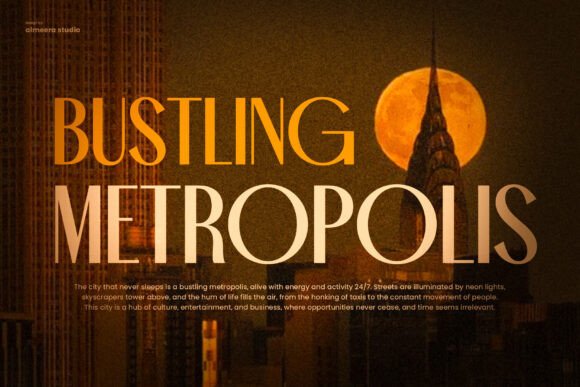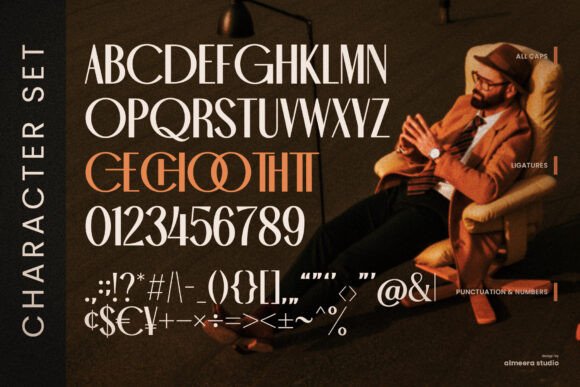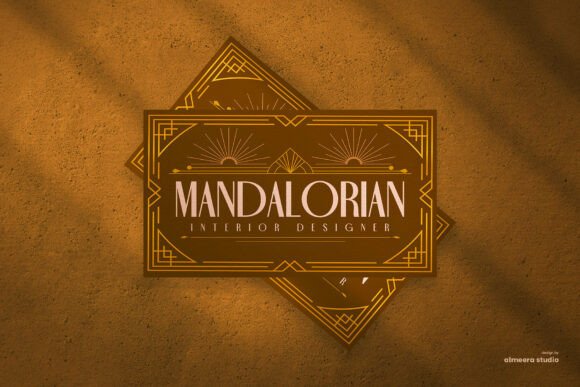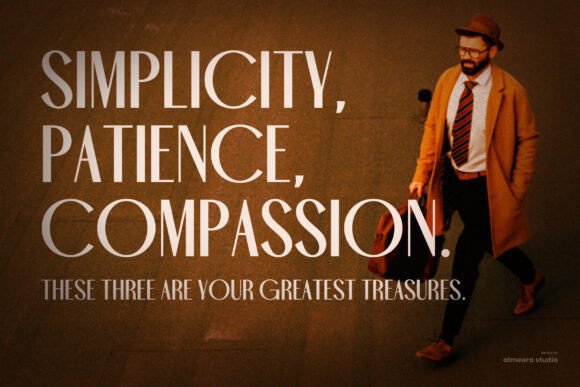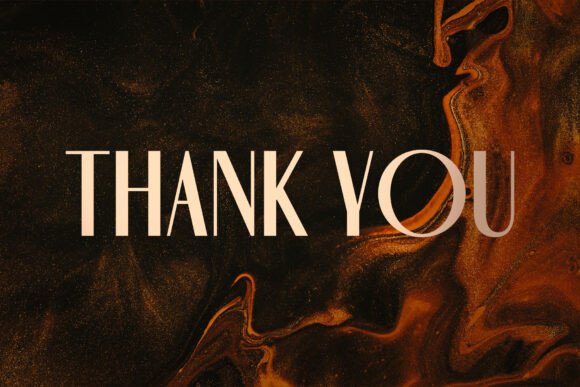
Introducing Charlie Brown – The Elegant Modern Sans Font
In the world of typography, fonts play a crucial role in conveying messages, expressing emotions, and creating visual identities. For designers, crafters, and marketers, finding the perfect font can be a daunting task. However, if you’re looking for a modern, elegant, and simple font that can elevate your designs, look no further than Charlie Brown – a stunning sans serif font.
What is Charlie Brown Font?
Charlie Brown is a modern sans serif font designed to make a statement. Its clean lines, elegant curves, and simple structure make it an ideal choice for a wide range of design applications. Whether you’re creating headings, logos, branding materials, magazines, product packaging, or invitations, Charlie Brown is the perfect font to add a touch of sophistication and style to your work.
Key Features of Charlie Brown Font
- Modern and Elegant Design: Charlie Brown boasts a sleek and contemporary design that’s perfect for creating visually appealing designs that stand out from the crowd.
- Simple and Versatile: The font’s simple structure makes it incredibly versatile, allowing you to use it for a wide range of design applications, from headings and logos to body text and more.
- Excellent Legibility: Charlie Brown’s clear and concise letterforms ensure excellent legibility, making it easy for readers to quickly understand and engage with your content.
- High-Quality Vector Graphics: The font is designed as high-quality vector graphics, ensuring that it remains crisp and clear even at large sizes.
Use Cases for Charlie Brown Font
Charlie Brown’s versatility makes it an excellent choice for various design applications, including:
- Headings and Titles: Use Charlie Brown to create stunning headings and titles that grab attention and add visual interest to your designs.
- Logos and Branding: The font’s modern and elegant design makes it perfect for creating professional logos and branding materials that reflect your brand’s personality.
- Magazines and Editorials: Charlie Brown’s excellent legibility and clean design make it an excellent choice for magazine and editorial design.
- Product Packaging: Add a touch of sophistication to your product packaging with Charlie Brown’s elegant and modern design.
- Invitations and Events: Use Charlie Brown to create beautiful invitations and event materials that reflect your personal style or brand identity.
Tips for Using Charlie Brown Font
To get the most out of Charlie Brown, here are some tips to keep in mind:
- Experiment with Font Sizes: Charlie Brown’s clear design ensures excellent legibility at various font sizes. Experiment with different sizes to find the perfect balance for your design.
- Pair with Other Fonts: Charlie Brown pairs well with other fonts, especially serif fonts. Try pairing it with a serif font to create visual interest and add depth to your design.
- Use for Display Purposes: Charlie Brown is designed as a display font, making it perfect for headings, titles, and other display purposes.
Charlie Brown is a stunning modern sans serif font that’s perfect for designers, crafters, and marketers looking to elevate their designs. Its elegant and simple design makes it an excellent choice for a wide range of applications, from headings and logos to magazines and product packaging. With its excellent legibility, versatility, and high-quality vector graphics, Charlie Brown is sure to become a favorite font in your collection.